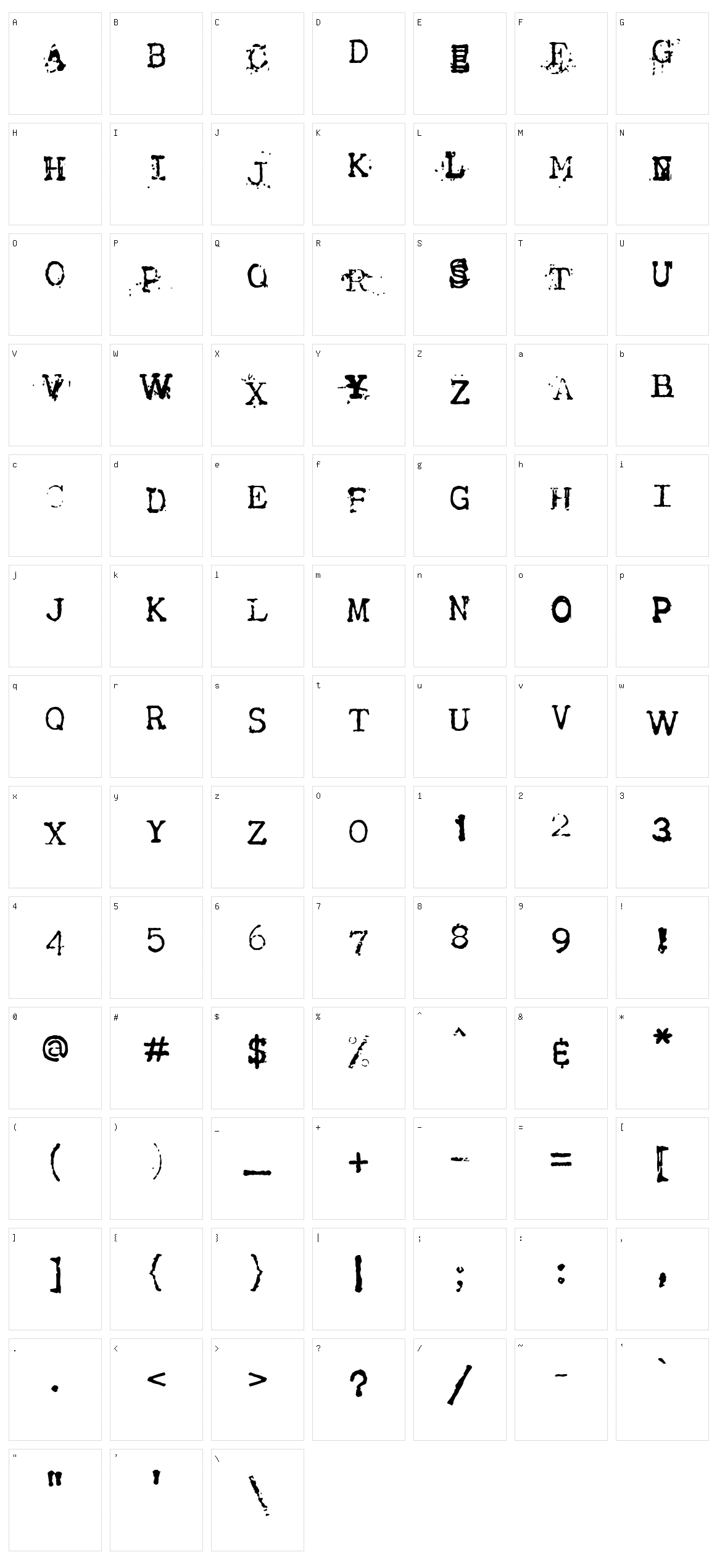
The free font Tract is carefully designed by imagex, showcasing a thoughtful balance of creativity and usability and falls under the Typewriter font style. When you download the ZIP file, it contains only 36.11 KB of font files, making it lightweight and quick to download. Please review the license details below to understand permitted usage and distribution rights. If license information is not available, we recommend using this font for personal projects only or contacting the author directly for commercial usage permissions.